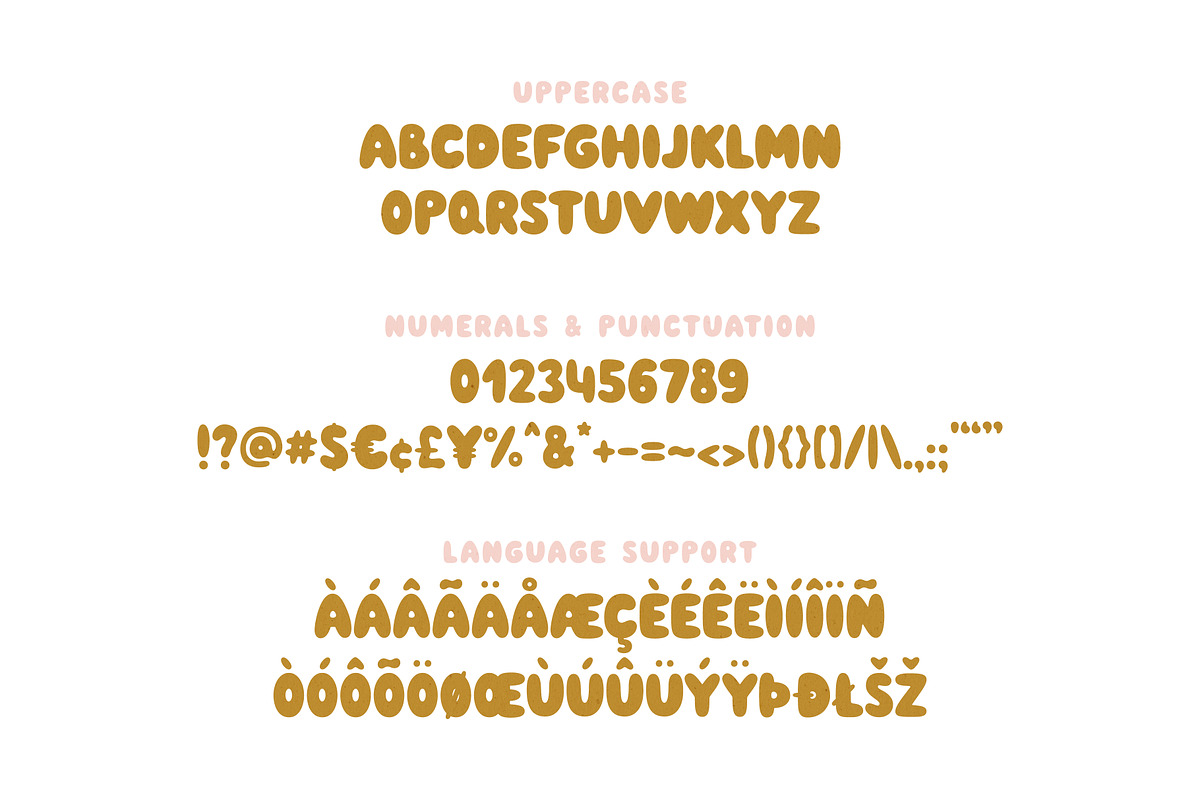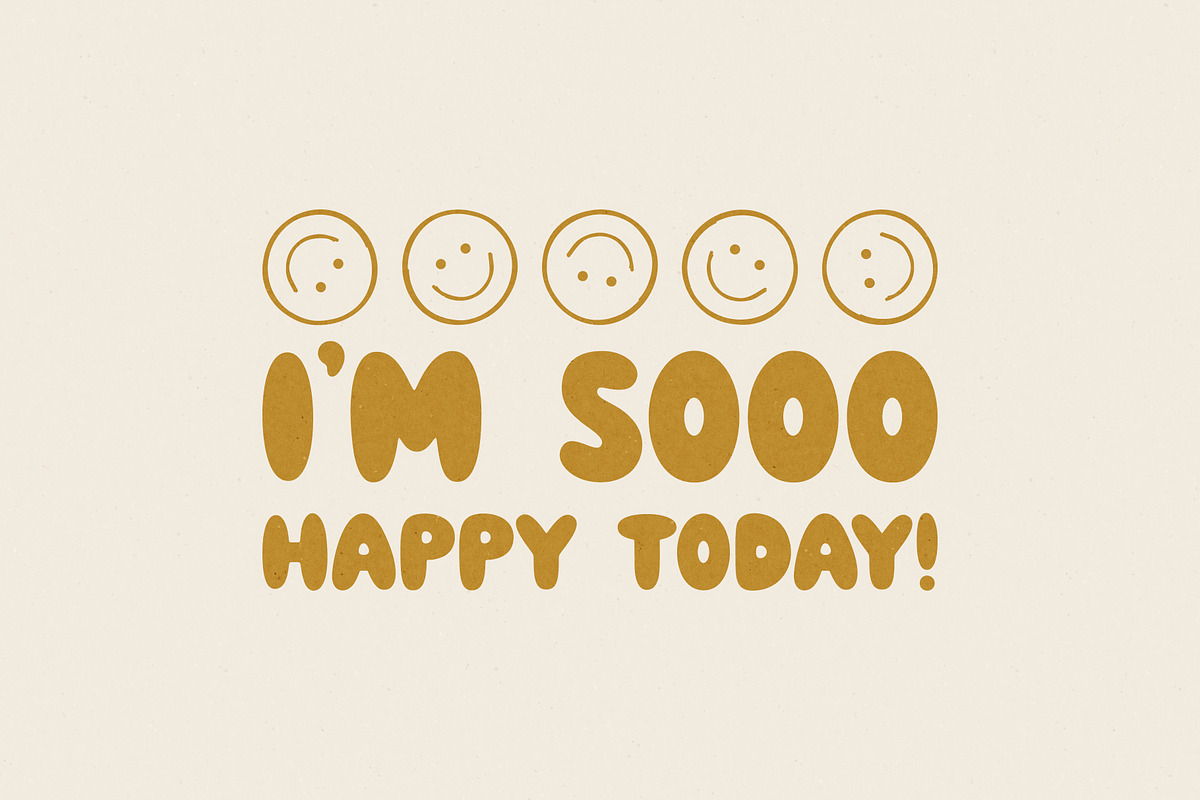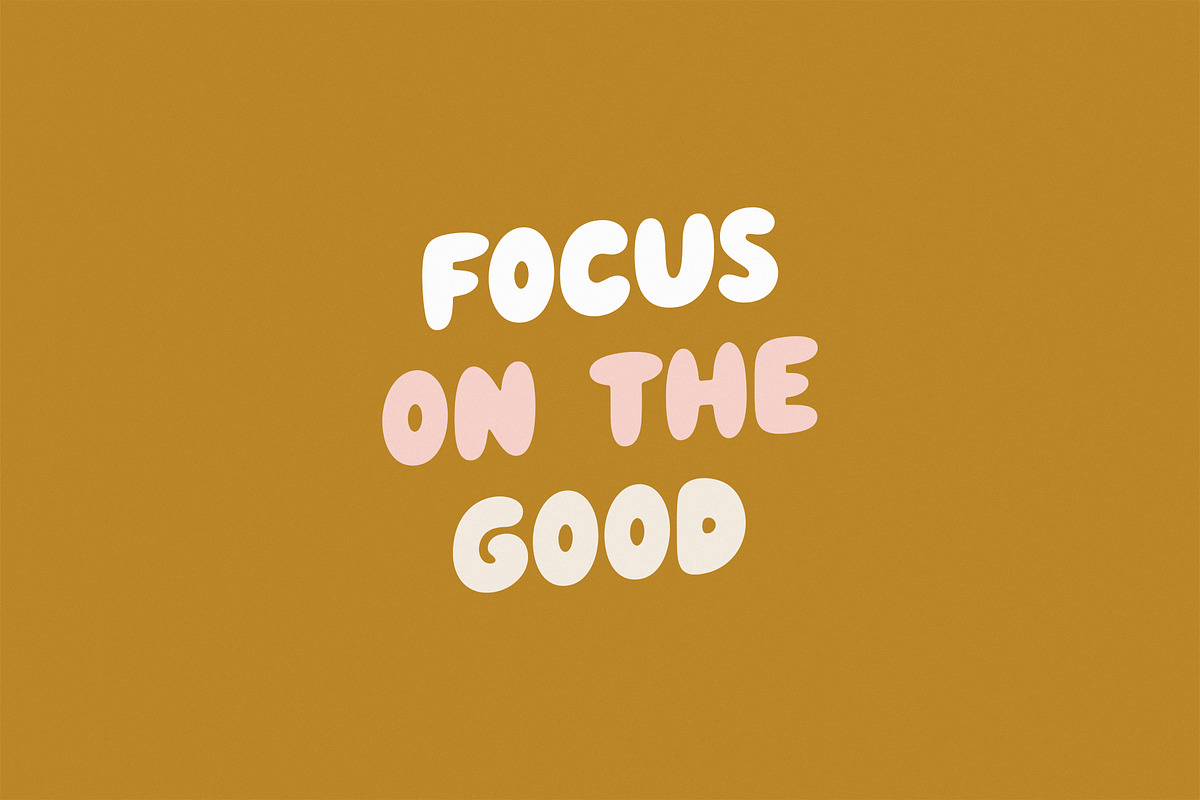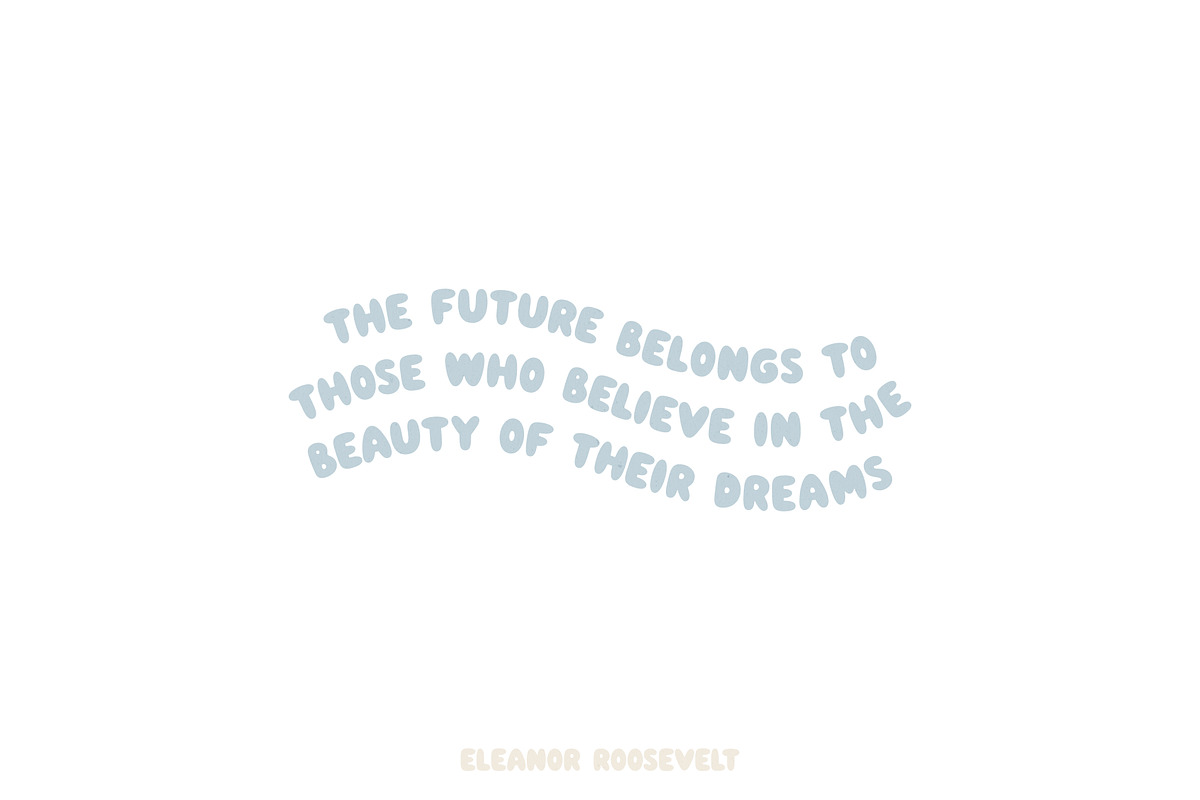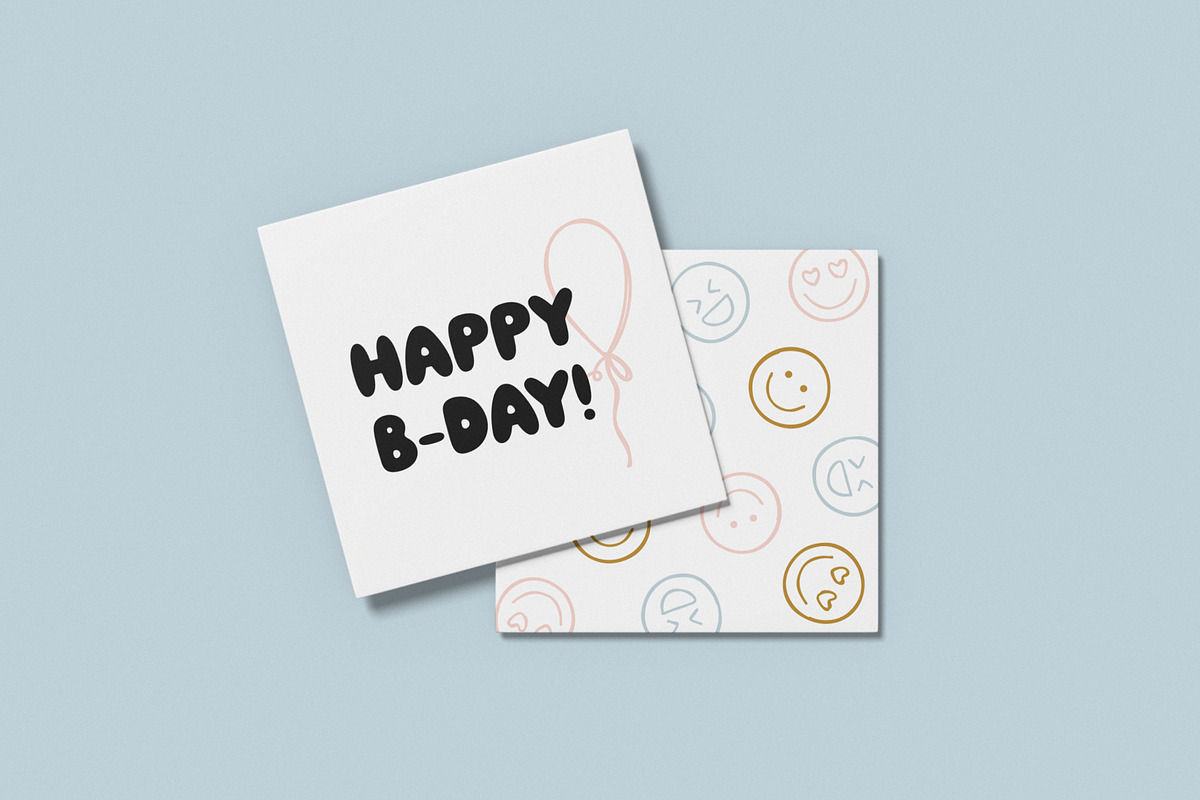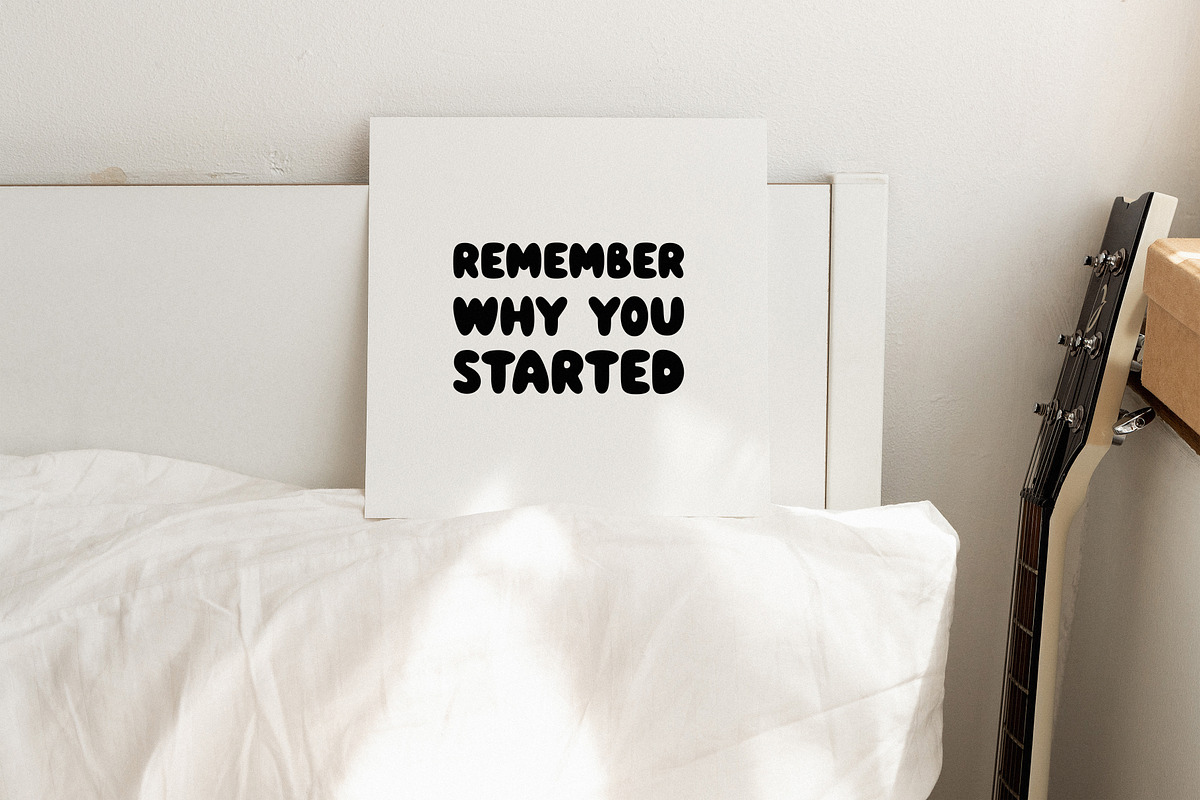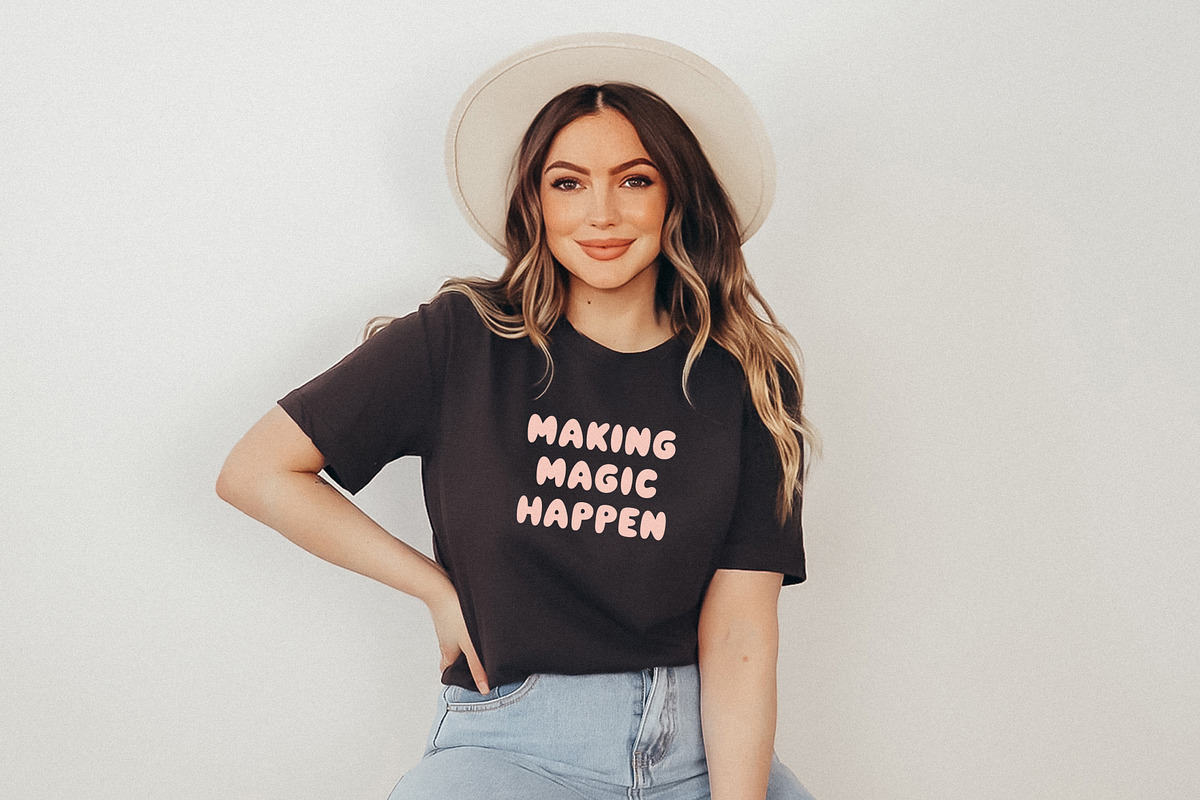
Simply Kind - Bubble Font
Simply Kind - a fun bubble all cups font with trendy doodle graphics. Perfect for logos, branding, packaging, apparel, cards, posters, quotes, social media posts and so much more!
Simply Kind - Bubble Font by simpleblues fits naturally into Branding, posters, packaging, typography.